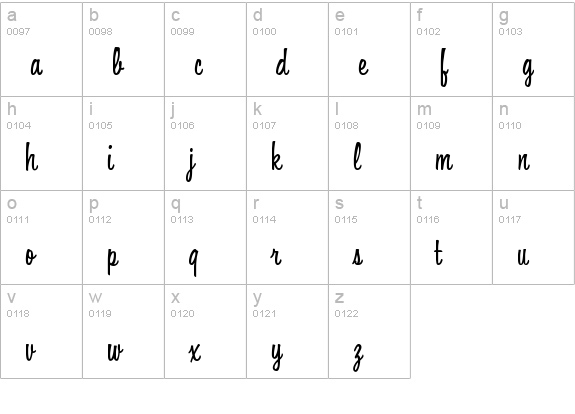
Introducing Houston BQ font, a versatile and modern typeface perfect for a wide range of design projects. With its sleek lines and contemporary style, Houston BQ font exudes sophistication and elegance. Whether you're designing a logo, creating a branding project, or crafting a stunning poster, this font is sure to make your text stand out. What's even better is that Houston BQ font is available for free download at FontsMarket.com. Yes, that's right - you can get your hands on this premium font without spending a dime. Don't miss out on the opportunity to elevate your designs with the beauty and versatility of Houston BQ font. Download it today and let your creativity soar!